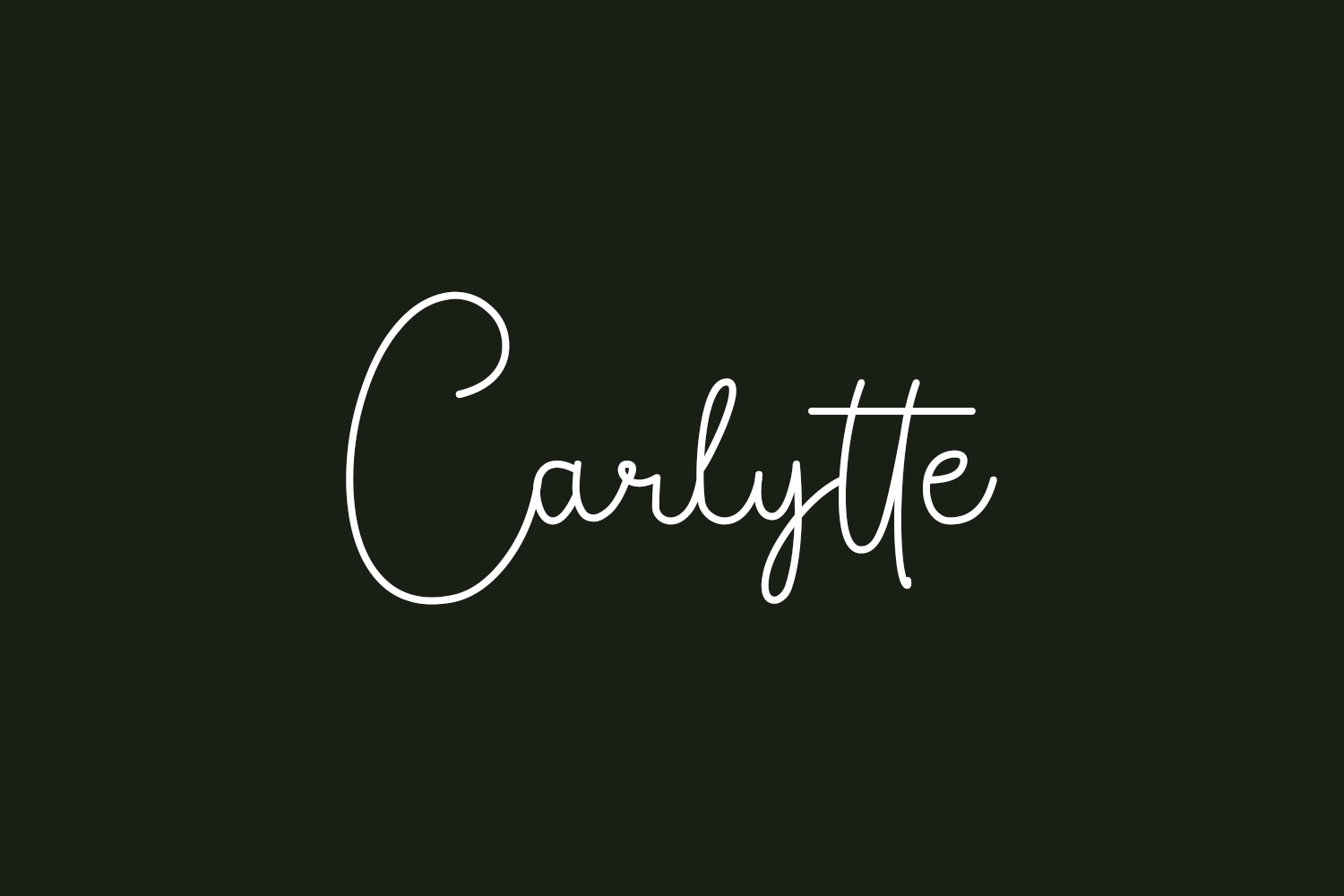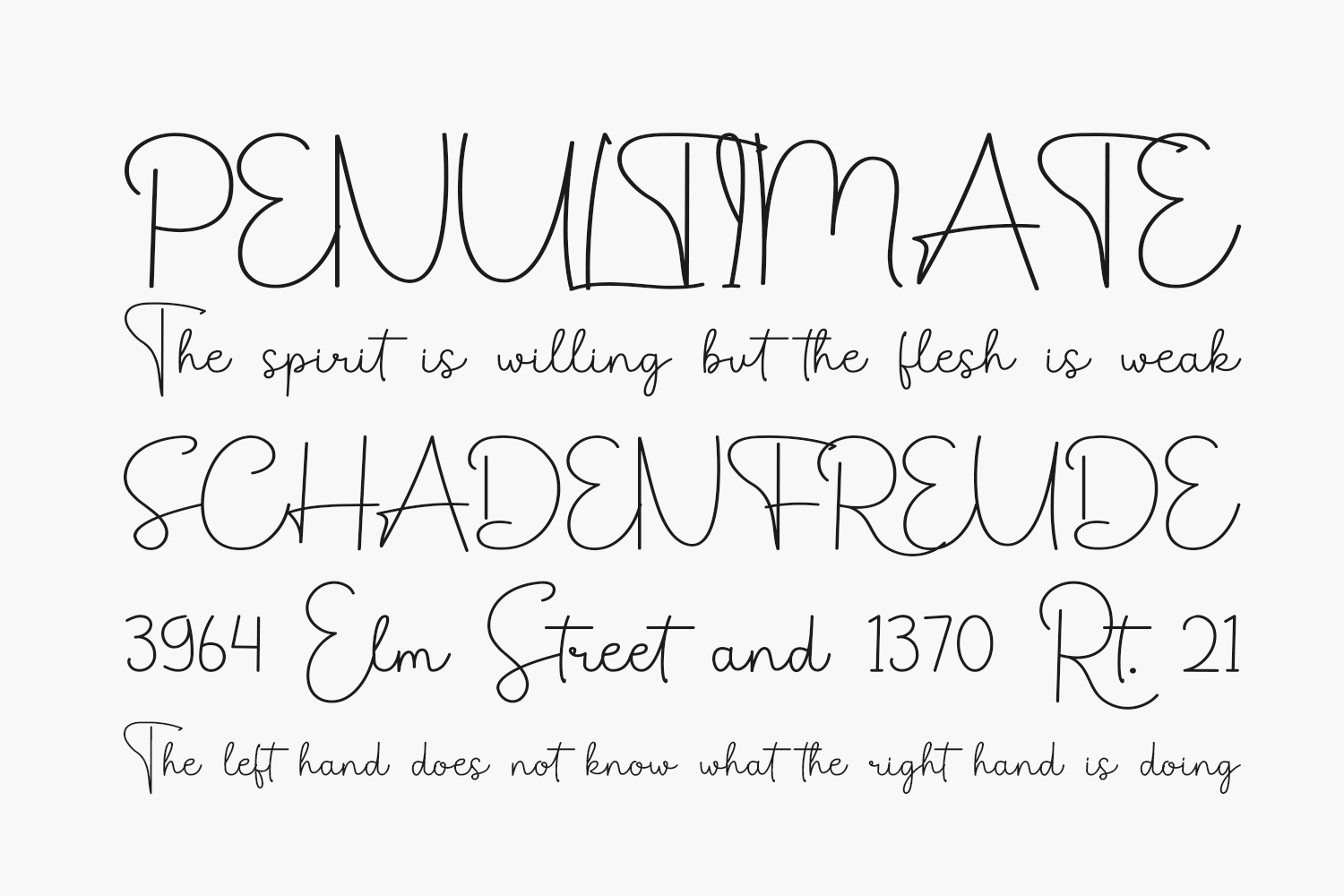
Carlytte Free Font is a thin and beautiful handwritten font. Its distinct and well rounded letters make this font a masterpiece. Fall in love with its incredibly versatile style and use it to create spectacular designs. Carlytte Free Font was designed by Mustofa Nur Sidiq and is free for personal use only. Please purchase the full version for commercial use.
Designed by Mustofa Nur Sidiq